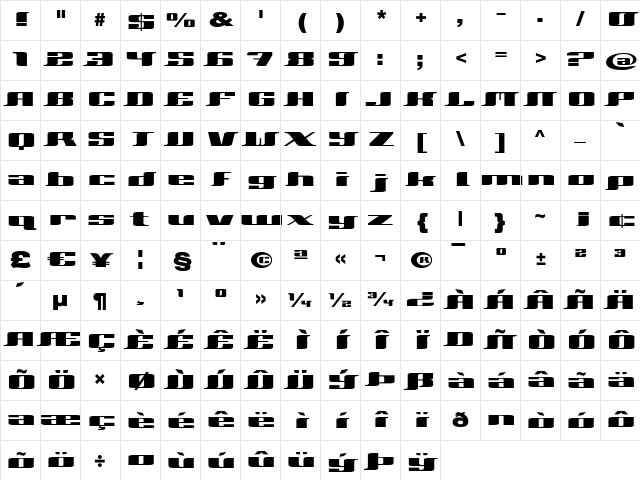
Complete Xeranthemum Regular glyph index. Displaying only characters natively supported by Xeranthemum Regular font.
Xeranthemum is a composed and adaptable typeface that performs quietly and consistently across a wide range of design contexts.